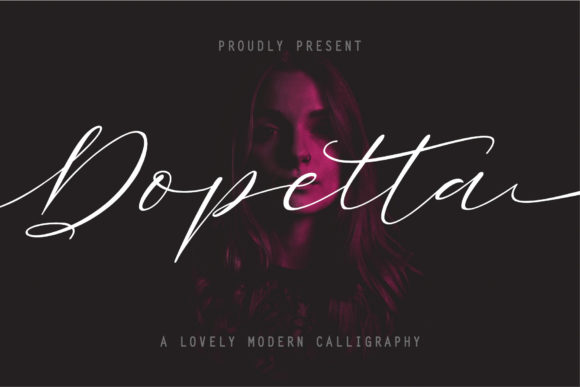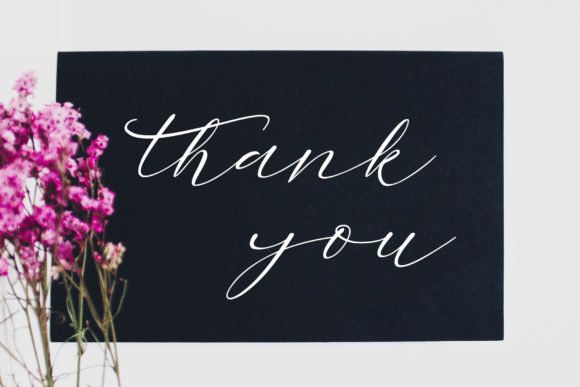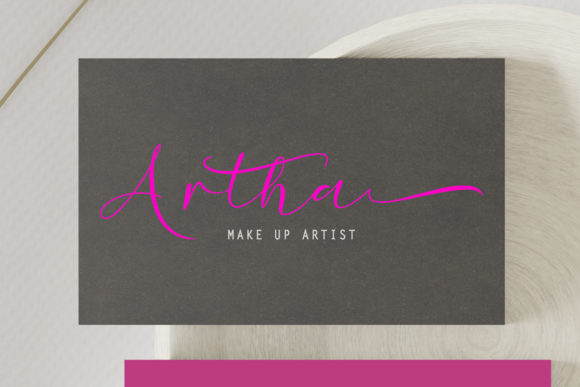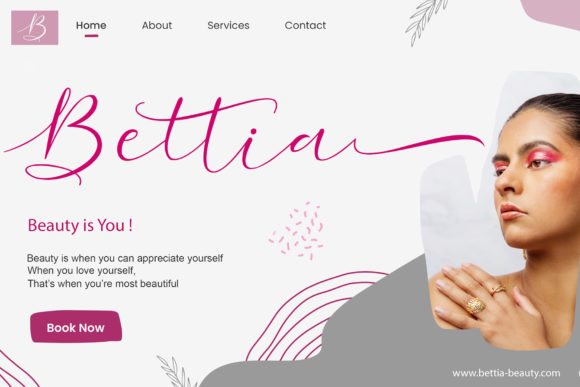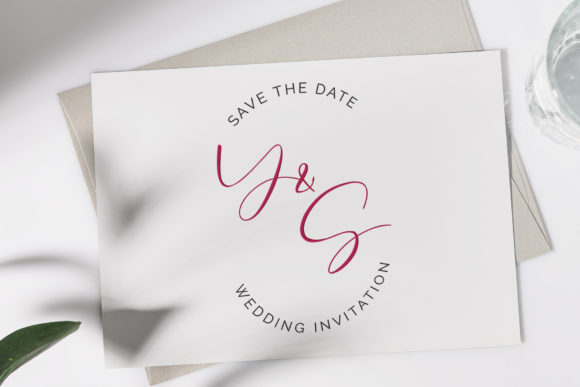
About Dopetta Font
Dopetta is a beautiful light handwritten font that possesses a unique feel and delivers a stunning impact. With its luxurious spark, this font elevates any design project you wish to create. Additionally, Dopetta is PUA encoded, providing effortless access to its amazing glyphs and ligatures, expanding your creative options.
The beauty of Dopetta lies in its light and delicate appearance. Its handwritten style adds a personal touch to your designs, evoking a sense of authenticity and charm. Whether you’re working on branding materials, invitations, packaging, or any other project, Dopetta font brings a touch of elegance and sophistication.
Dopetta’s unique feel sets it apart from other fonts, making it a standout choice for your design projects. The font’s distinct personality adds character and depth, allowing you to create designs that leave a lasting impression. Its unique style resonates with audiences, making it ideal for creating memorable and impactful visual experiences.
The luxury spark of Dopetta stems from its refined aesthetics and attention to detail. The font’s carefully crafted letterforms and ligatures exude elegance and sophistication. It elevates your designs, bringing a touch of luxury and exclusivity to any project. Whether used for headlines, titles, or decorative elements, Dopetta font enhances the overall visual appeal and captivates the viewer.
The PUA encoding of Dopetta ensures easy access to its extensive set of glyphs and ligatures. This feature empowers you to explore and utilize the font’s decorative elements, allowing for further customization and creativity in your designs. You can enhance your compositions with unique flourishes and combine letters in special ways, adding an extra touch of artistry and visual interest.
In summary, Dopetta is a beautiful light handwritten font with a unique feel and a stunning impact. Its luxurious spark adds elegance and sophistication to any design project. With its PUA encoding, accessing the font’s amazing glyphs and ligatures is effortless, providing a wealth of creative possibilities. Embrace the beauty of Dopetta and let it inspire your designs with its distinctive and refined style.